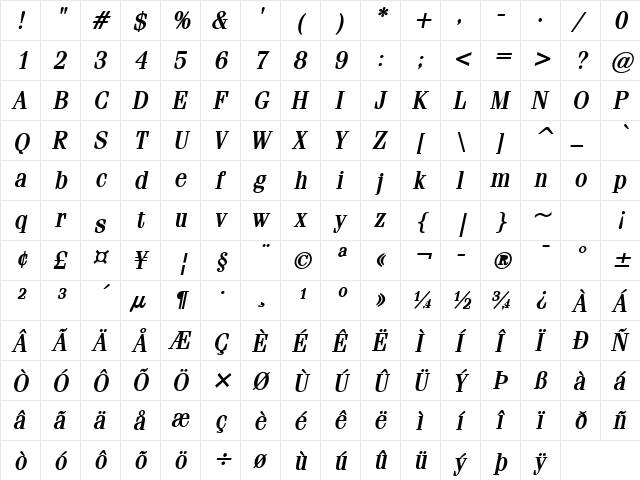
Feline BoldItalic
Design Context for Feline
Feline is a composed and adaptable typeface that performs quietly and consistently across a wide range of design contexts. The slanted form adds forward momentum and visual energy. Its bold stroke weight gives it real presence on the page.
Pro Tip: Use Feline for emphasis, pull quotes, and subheadings where its slanted energy can add rhythm to the layout.